2 Google Fonts Similar to Avenir
Even though it was created in the 1920s, Avenir is still a popular font used by many designers today. It is a classic easy to read font. What makes it so unique is how versatile it is. It can be used for body text as well as headline text. It carries this classic appearance that is familiar and easy to read.
Luckily there are a few good alternatives that are available on Google Fonts that would work for anyone who is one budget.
What Google Fonts are Similar to Avenir?
The best free to use Google Fonts alternatives for Avenir are:
- Nunito Sans
- Lato
Both of these fonts share similar characteristics of Avenir. They are both easy to read and work for both as body and headline text.
So let's take a dive into each one so you can know which one works best for you.
Nunito Sans
Nunito Sans is a font that was originally designed with the user interface in mind. It has been perfected to be easy to read on digital screens. Much like Avenir, it is a typeface that works great for both title and body text.
This font is much like Avenir because it is easy to read. The letters are friendly yet professional.
The major difference between the two fonts is the lowercase "g". That is were you will see the more dramatic difference. There are also minor differences in the "f" and "a".
The most dramatic yet common characteristic is the swooping "t".
Overall it would be a good alternative if you are on a budget.
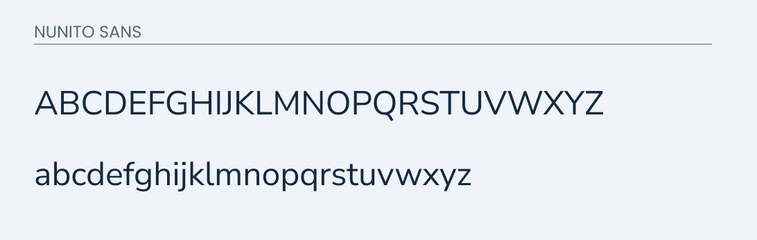
Lato
Lato is another great runner up to Avenir that is available on Google Fonts. Each letter in Lato features a classic proportion which makes it easy to read. It was designed to be classic, serious, but friendly.
The differences between Lato and Avenir are mainly the "g" and the "y". The "y" in avenir has a nice little tail at the very end. While lato, features more of a straight line on the down stroke.
Here are some example texts.
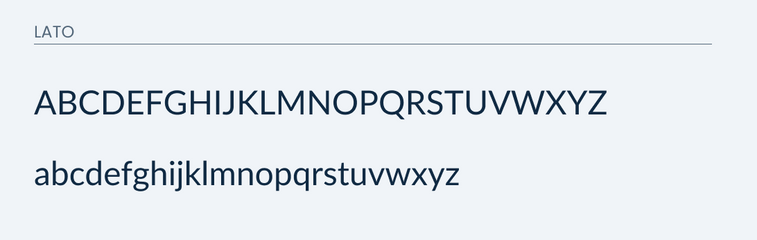
Final Thoughts
Lato and Nunito Sans both make great alternatives to Avenir. Although they are not exactly alike, they do feature similar look and feel. They are both designed to be easy to look at and read on a digital screen. So if you are looking for a different solution, I would recommend these two.